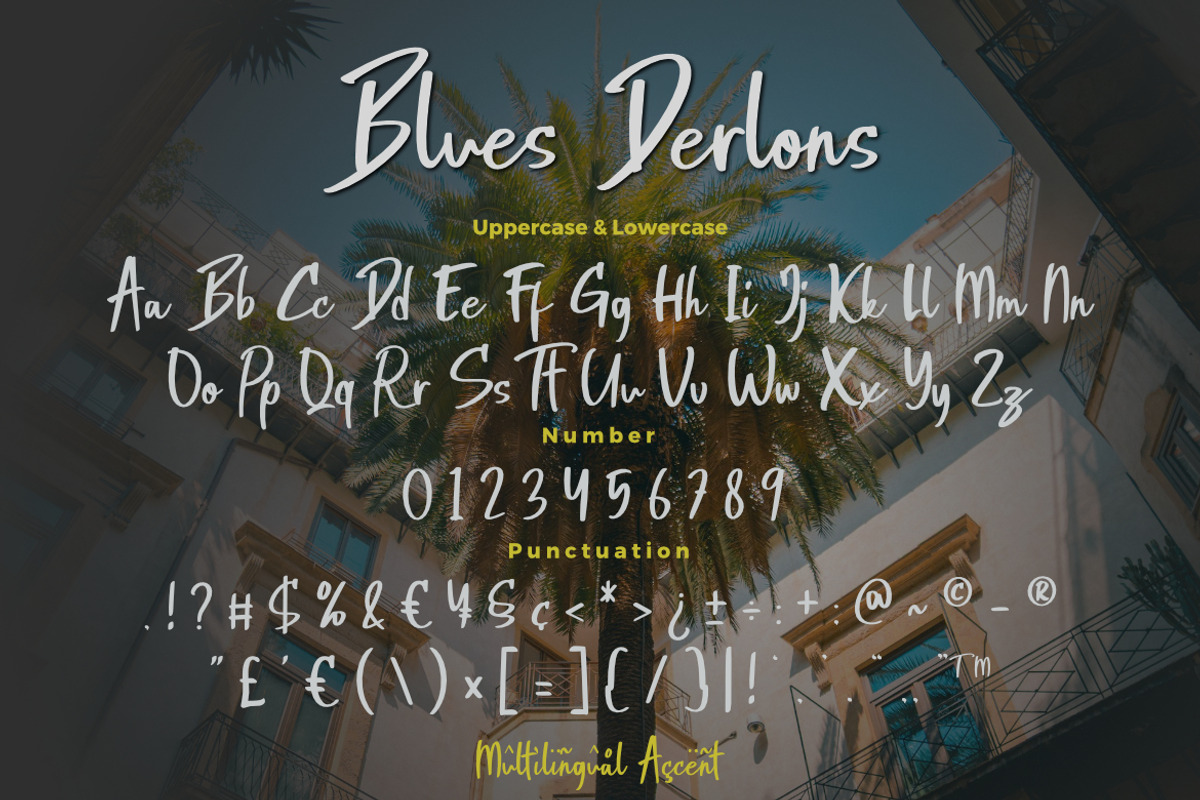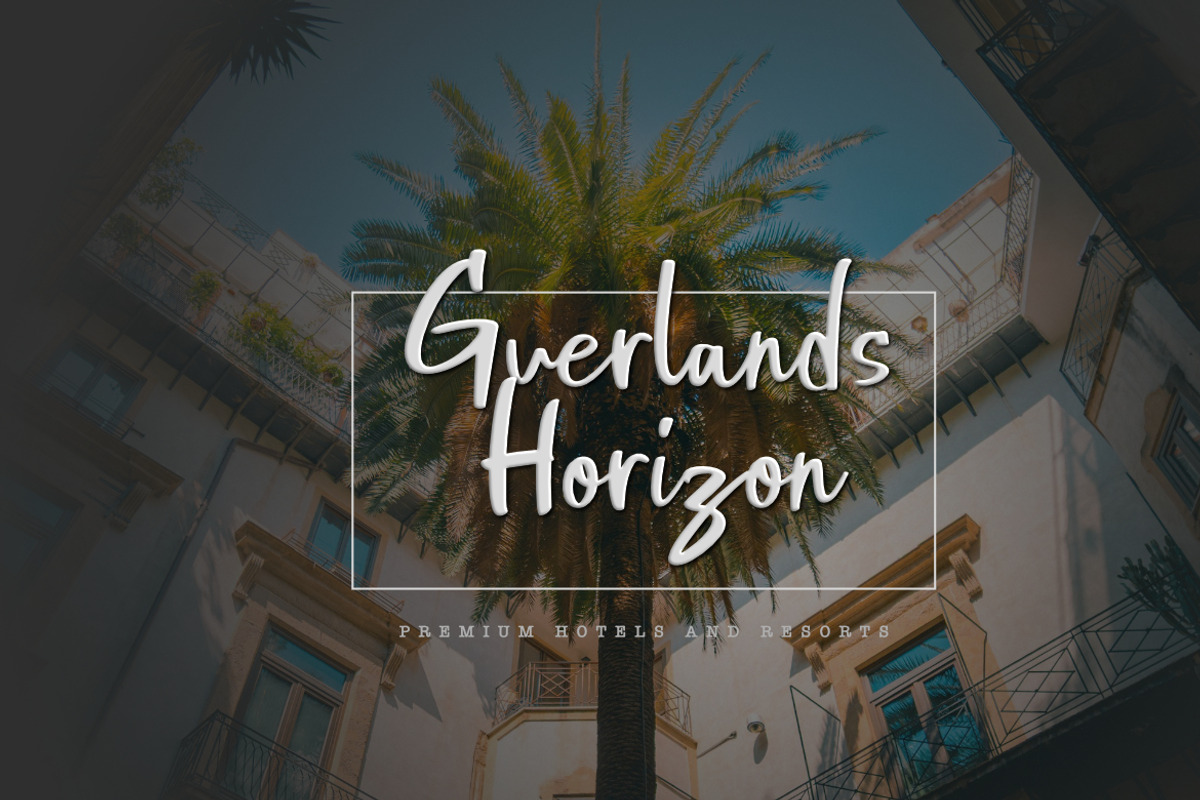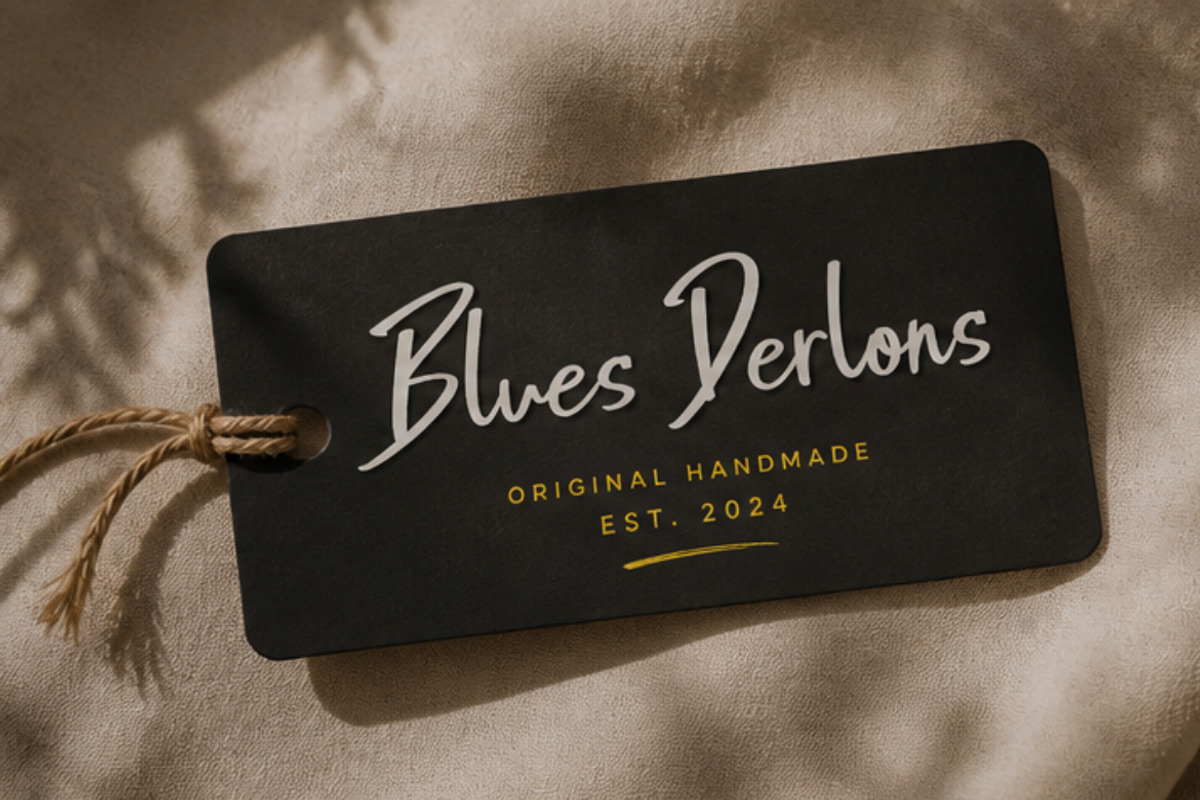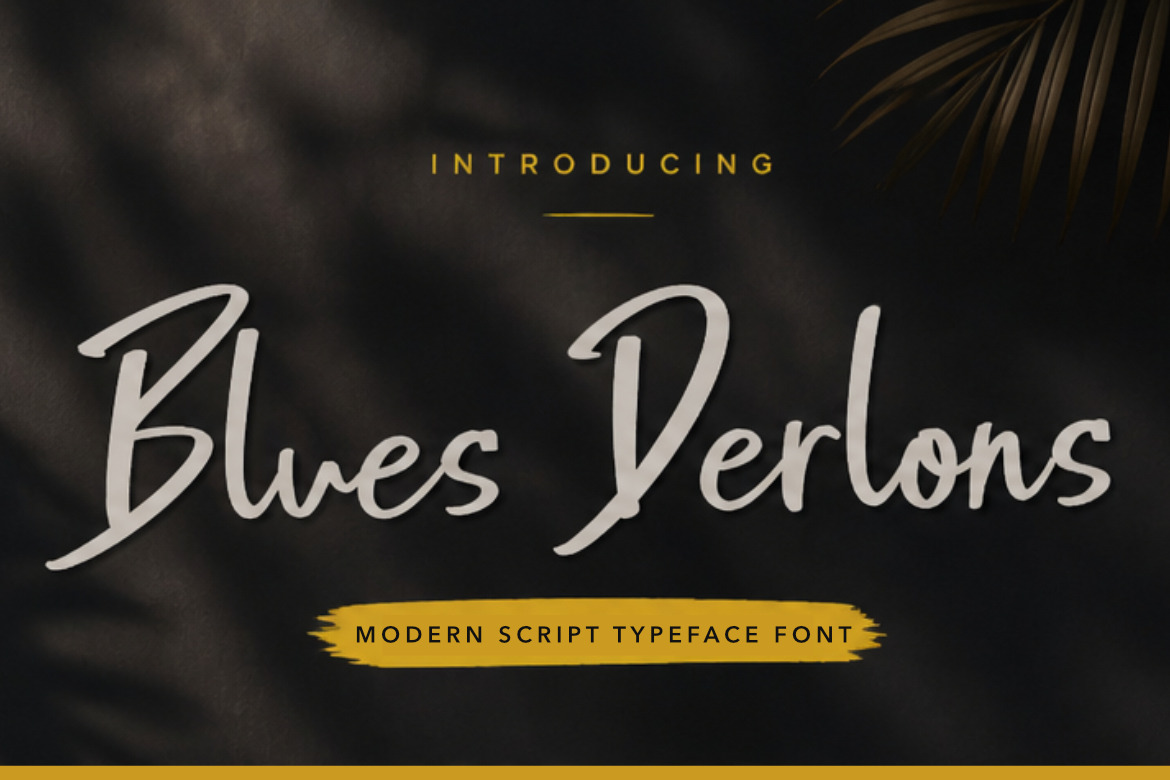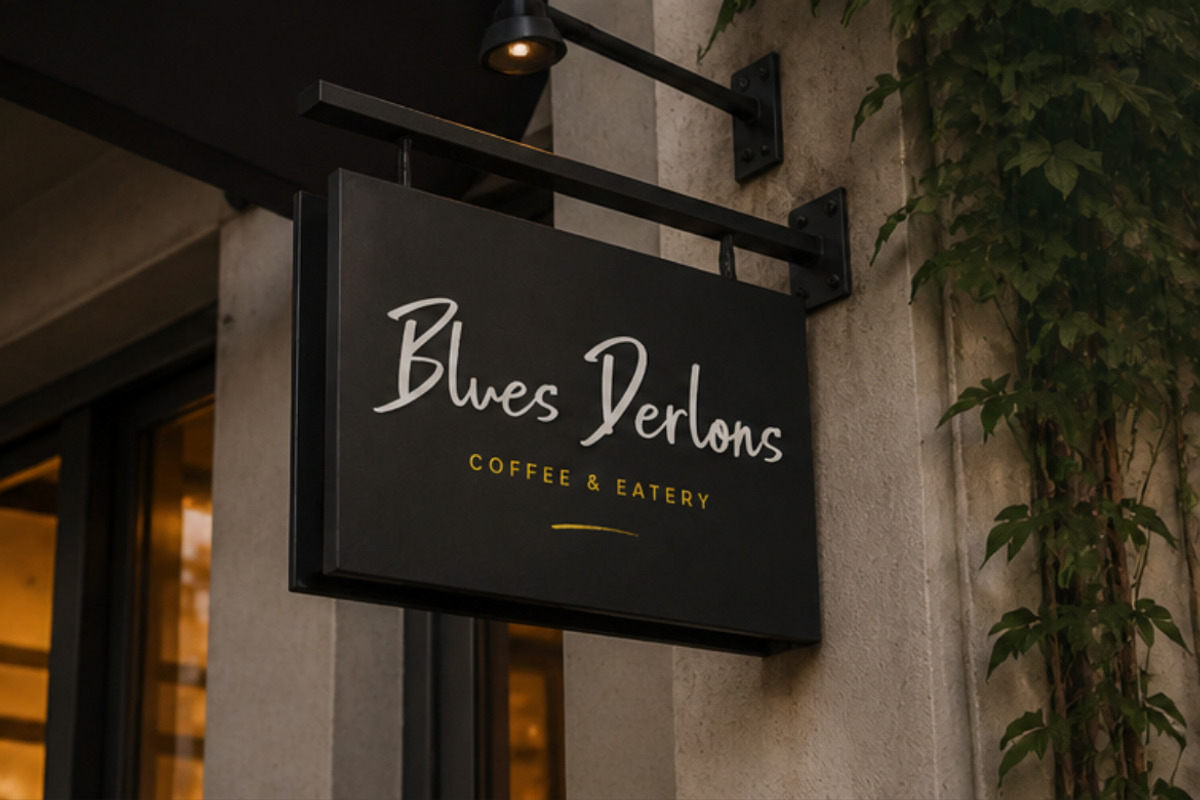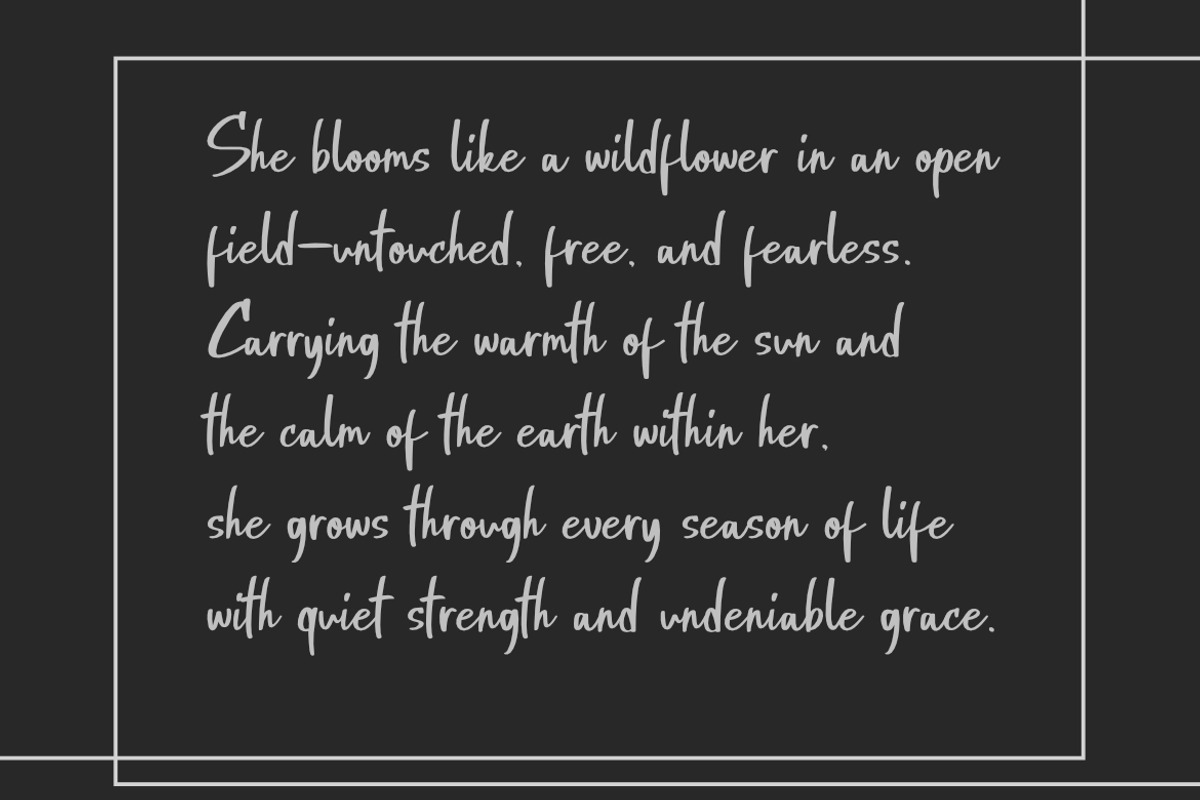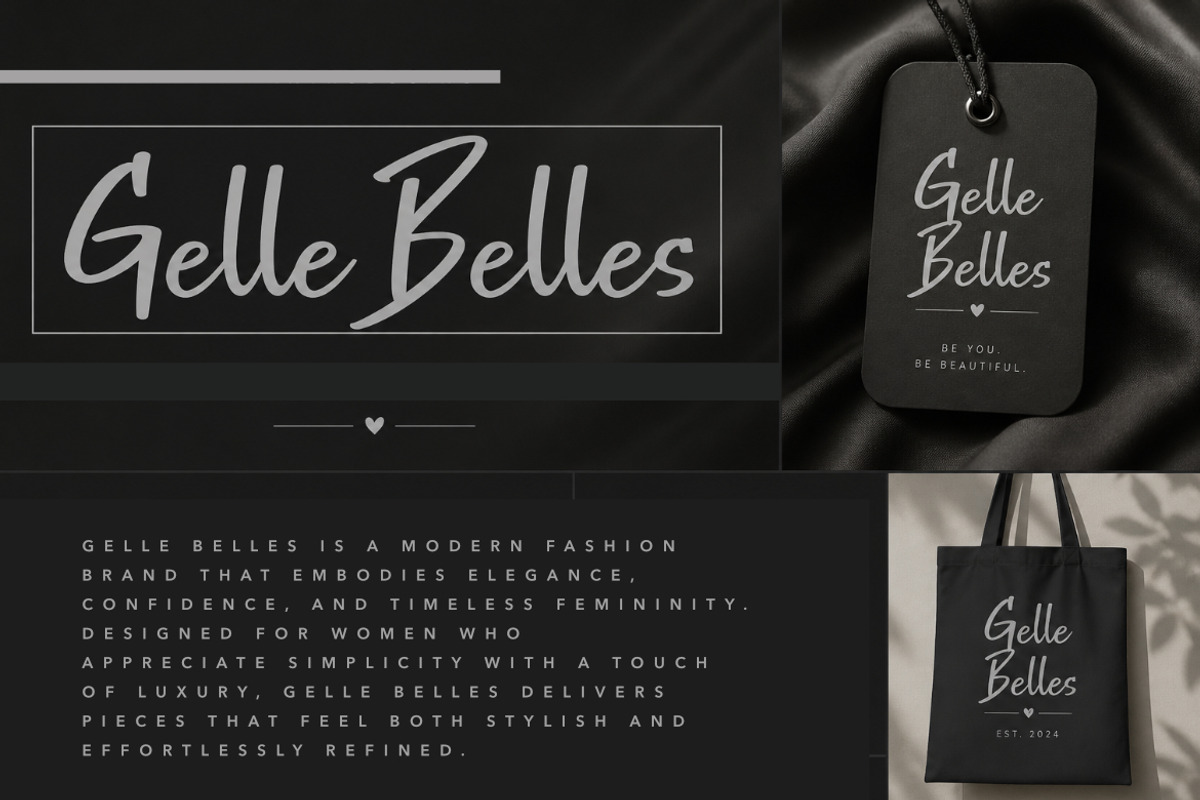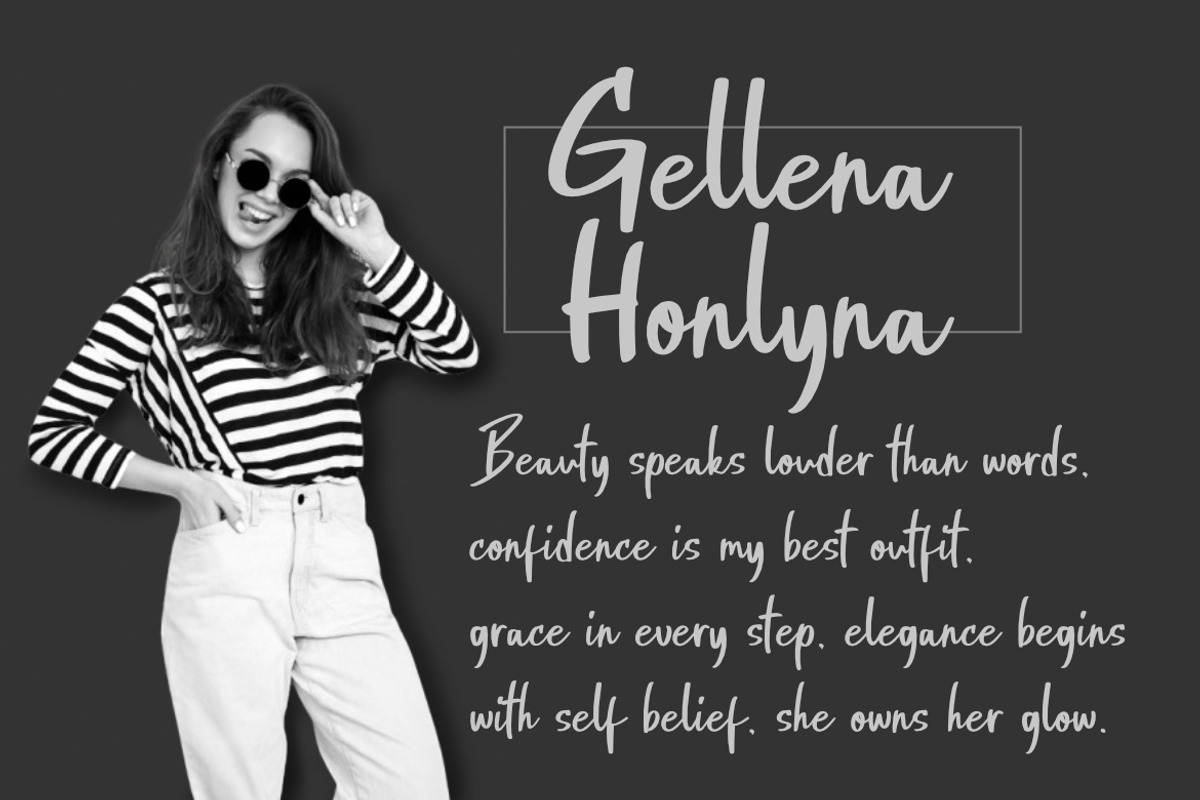
Blues Derlons a Modern Script font
Blues Derlons – Modern Script Typeface
Blues Derlons a Modern Script Typeface is a stylish and expressive handwritten font inspired by fluid brush strokes, contemporary lettering, and smooth calligraphic forms. Featuring elegant curves, natural flow, and balanced proportions, this typeface delivers a clean and modern visual appeal.
Carefully designed to reflect the beauty of natural handwriting, Blues Derlons combines soft stroke transitions with a polished and contemporary finish. Each character is crafted with subtle irregularities, creating a dynamic and organic rhythm that enhances its visual charm.
With its versatile and refined style, Blues Derlons is well-suited for creative projects that require a modern, artistic, and professional touch. It offers a harmonious blend of elegance and readability across various design applications.
Key Features :
\\\* Uppercase & Lowercase Characters
\\\* Numerals & Punctuation
\\\* Multilingual Support
\\\* PUA Encoded & OpenType Features
\\\* Smooth Script Style
\\\* Elegant & Flowing Letterforms
\\\* Clean & Modern Appearance
Suitable For :
\\\* Branding & Logo Design
\\\* Social Media Graphics
\\\* Editorial & Typography Design
\\\* Packaging & Labels
\\\* Fashion & Lifestyle Projects
\\\* Modern & Creative Designs
\\\* Advertising & Promotions
With Blues Derlons a Modern Script Typeface, your designs achieve a refined, stylish, and contemporary handwritten look—perfect for creating visually appealing and professional results.